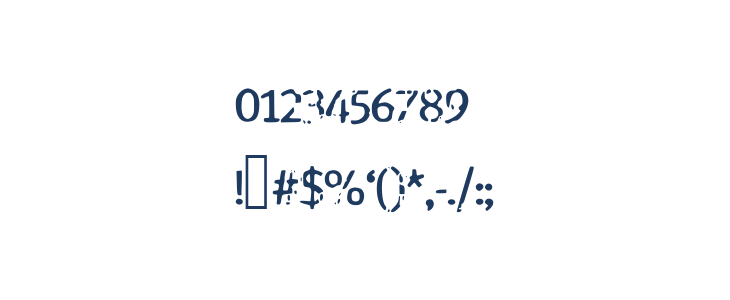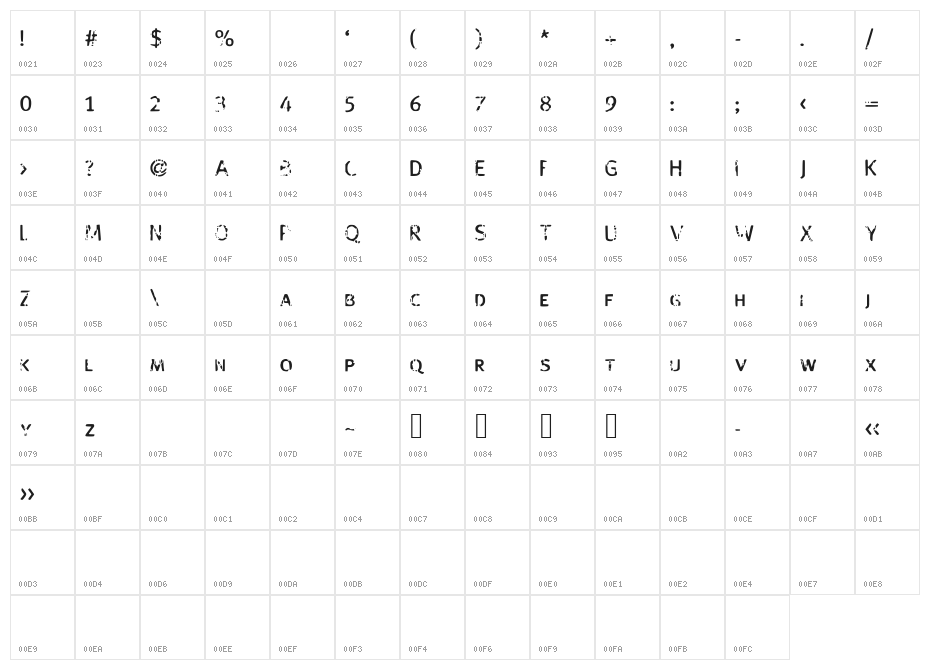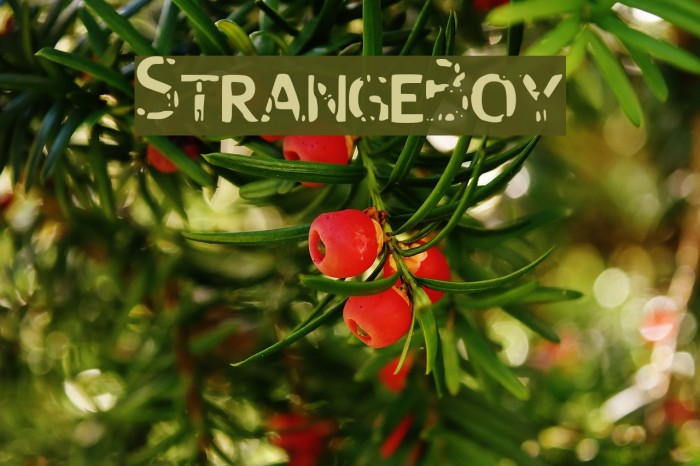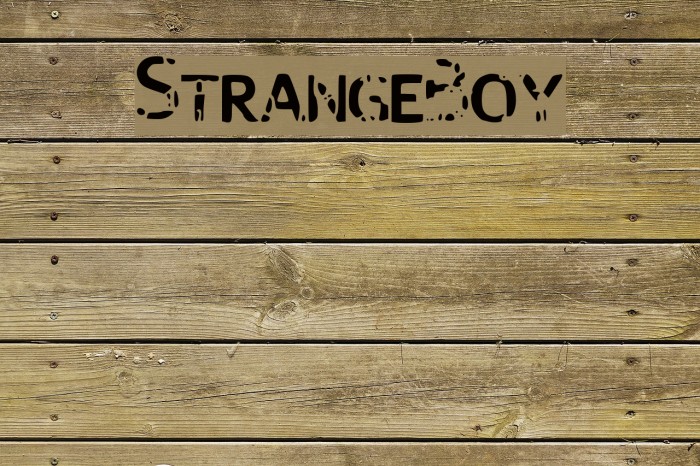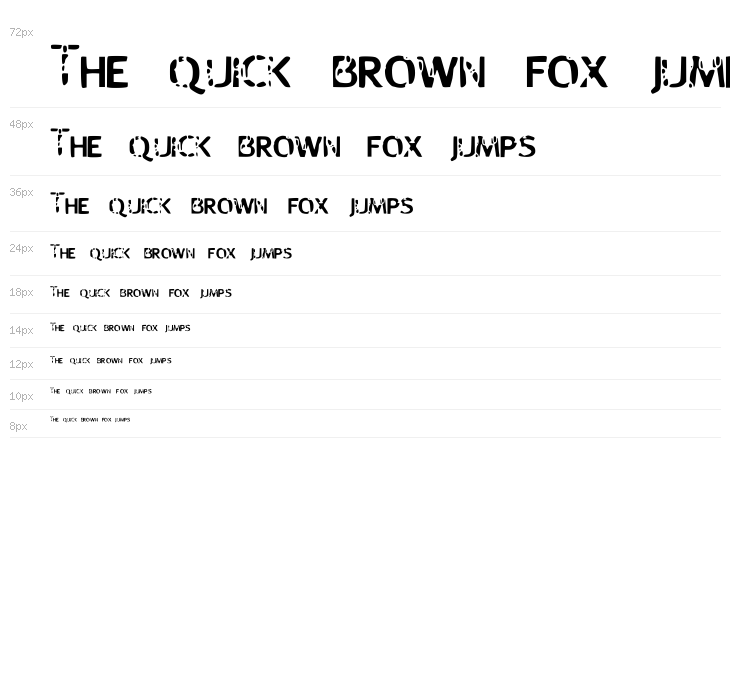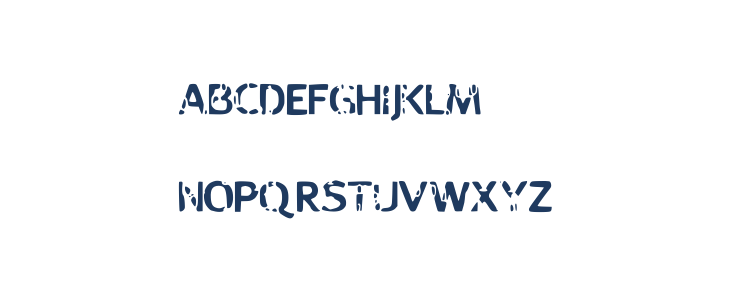
StrangeBoy Font
StrangeBoy Description
This font features a distressed and fragmented style, giving it a unique and edgy appearance. The characters are bold and have a rough, textured look, as if they have been eroded or worn away over time. This creates a dynamic visual effect that draws attention and adds a sense of movement to the text. The uppercase and lowercase letters maintain a consistent design, with irregular gaps and breaks that contribute to the overall distressed aesthetic. The numerals and special characters follow the same pattern, ensuring a cohesive look across all glyphs.
| Proposed Projects | Ideal for projects that require a grunge or urban theme, such as album covers, posters, or streetwear branding. |